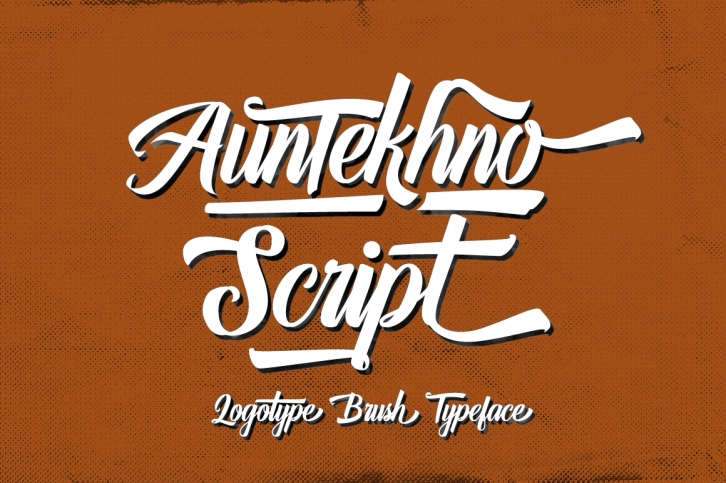
Auntekhno Script is a trendy and unique font with an authentic style. It was designed by feydesign and it's a great choice for creative people who need such a font. It was released on February 15, 2018 and the file size is 9.62 MB. Auntekhno Script will add an organic vibe to any design idea!